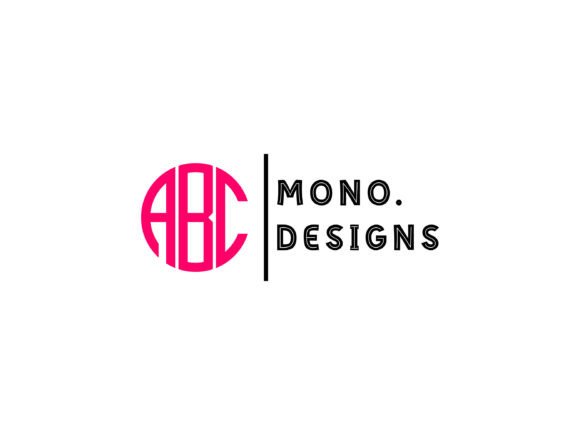
Introduction to Real Monogram Font
As a designer, there’s no greater thrill than seeing a project come together with a flourish of creativity and style. It’s that moment when the words, shapes, and colors all align in perfect harmony, leaving you with a sense of pride and accomplishment. For those seeking to elevate their designs, one valuable resource stands out – the Real Monogram Font.
With its high-quality design and transparent background, the Real Monogram Font is a versatile and sought-after design resource. Whether you’re working on a free download project or a paid commission, this stylish font is sure to add a touch of uniqueness to your creative project. As a valuable asset in any designer’s toolkit, the Real Monogram Font offers endless possibilities for crafting eye-catching designs that leave a lasting impression.
Key Features of Real Monogram Font
- High-quality vector font designed for creative projects and design resources, perfect for a variety of applications.
- Features a transparent background, allowing for easy integration with any design or background.
- Unique monogram design makes it ideal for creating personalized and custom designs for special occasions or events.
- Can be easily scaled and customized to fit various design requirements, from business cards to wedding invitations.
Honest Review: Real Monogram Font
I recently had the chance to work with the Real Monogram Font, and I must say, it’s a fantastic addition to any designer’s toolkit. The high-quality font is perfect for creative projects that require a touch of elegance and sophistication.
One of the standout features of the Real Monogram Font is its transparent background, which makes it incredibly versatile and easy to use. Whether you’re working on a branding project or a wedding invitation, this font is sure to impress.
- Transparent background makes it easy to use and versatile
- ⚠️ Limited character set, which may not be suitable for long-form content
- ⚠️ Not ideal for use on small screens, as the font can become difficult to read
Overall, I’m extremely impressed with the Real Monogram Font. It’s a fantastic design resource that’s perfect for any creative project. With a little bit of creativity and planning, you can use this font to create truly stunning designs.
Tips for Getting the Most Out of Real Monogram Font
When using Real Monogram Font, remember to use a transparent background to ensure your design looks its best. You can also experiment with different font sizes, colors, and styles to get the most out of this high-quality font.
Real Monogram Font is perfect for a variety of creative projects, including wedding invitations, social media graphics, and business logos. With its elegant and sophisticated design, you can create stunning designs that will stand out from the crowd.
Monogram Script Font by Dafont is a beautiful, handwritten monogram font that is perfect for designers who want to add a touch of elegance to their creative project. It’s a high-quality font that is available for free download and features a transparent background. Monogram Script Font is ideal for use in wedding invitations, greeting cards, and other design elements where a personal touch is necessary. Compared to Real Monogram Font, Monogram Script Font offers a more unique and artistic design.